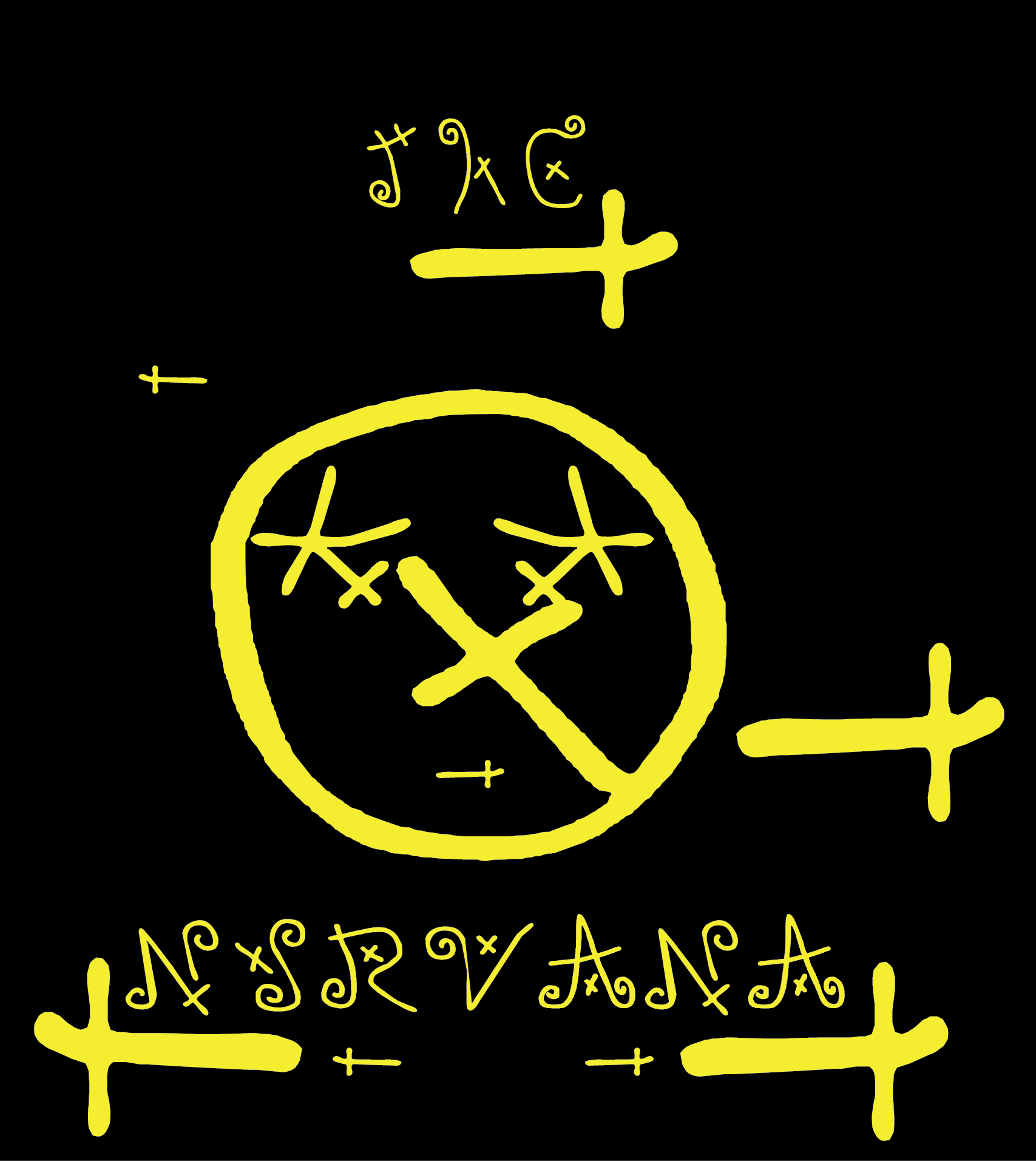
What Font Does Nirvana Use
What Font Does Nirvana Use. There are fonts that can be used for commercial purposes. Initially, the band used names like skid row, fecal matter, and ted ed fred before nirvana.
Here we offer a round up of 44 awesome free fonts that will make your website rock! There are fonts that can be used for commercial purposes. This font was used for the tilte of nirvana's mtv unplugged show.
The Band Featured The Onyx Typeface, Steaming From The Bodoni Family, An Extra Bold Condensed Version.
What font does the nirvana logo use? What quiz software does britannica use. Thousands of designers (famous or not) use the image font detection system to find a font or similar free fonts from an image.
As For The Nirvana Smiley Face Logo — That One First Appeared On A Poster For The Private Nevermind Album Release Party Held On September 13Th, 1991.
Griffith and published by linotype. This style was picked at random when lisa orth paid grant alden to use whatever font was programmed into his typesetter at that very moment. This company was founded by conrad hilton on 31 may 1999.
Nirvana is onyx logo album: The font used for the logotype is probably poster bodoni compressed. Answer 0 luckylefty brought to u by letters wtf.
The font used for nirvana logo is very similar to bodoni poster compressed, which is a neoclassical serif font designed by chauncey h. If you wish to use them in commercial projects. The design of this typeface is inspired by the.